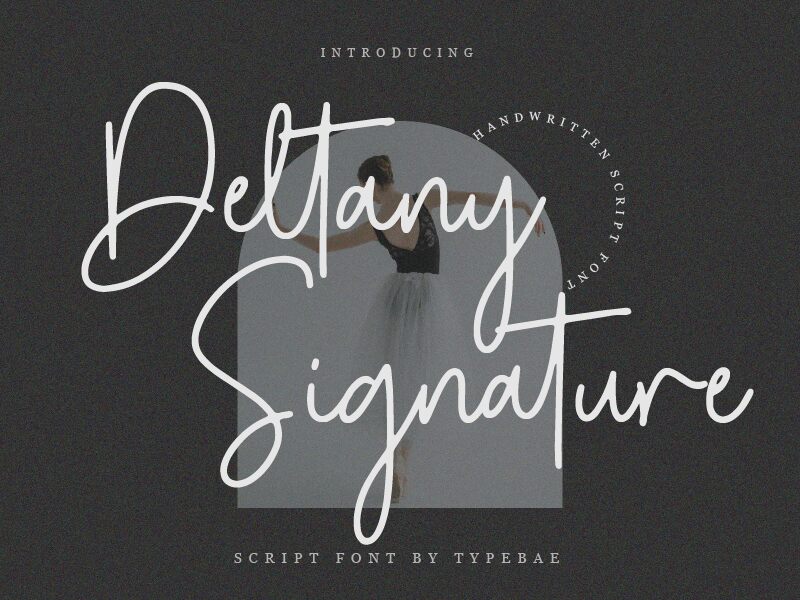
Deltany Signature
Deltany Signature font by Typebae Foundry is a light handwritten font that captures the essence of elegance and contemporary style. Its flowing, expressive strokes embody an artistic touch, making it ideal for those seeking a font with both beauty and individuality.
This free handwritten font is perfect for personal branding, invitations, logos, business cards, websites, headings, quotes, book covers, advertising materials, social media graphics and product packaging.